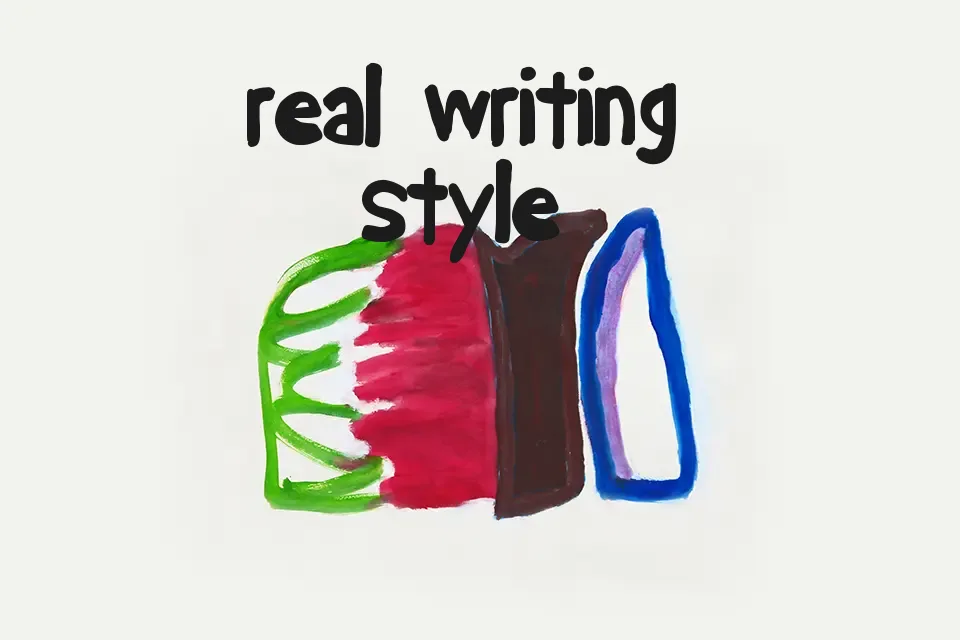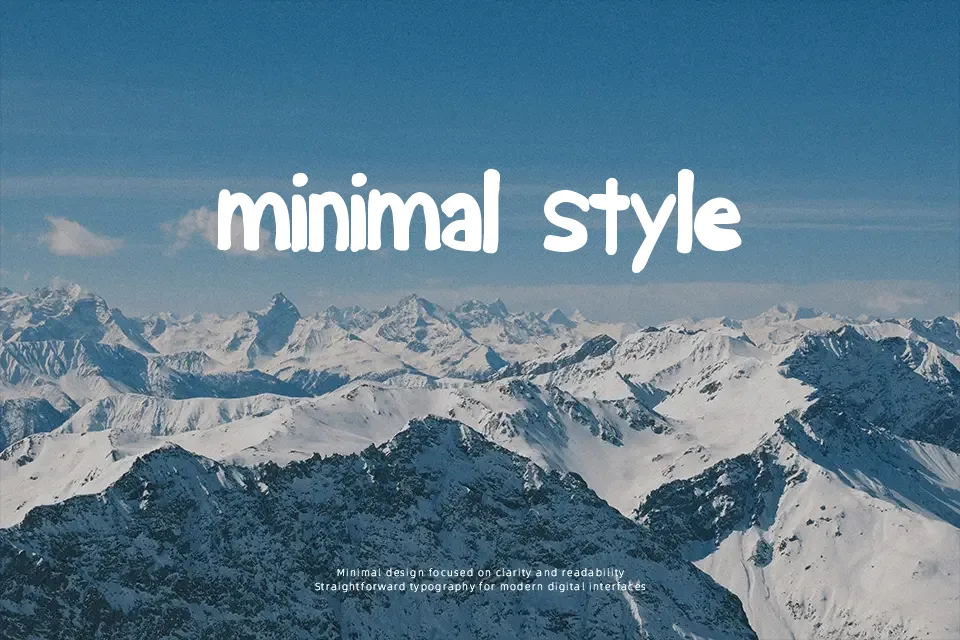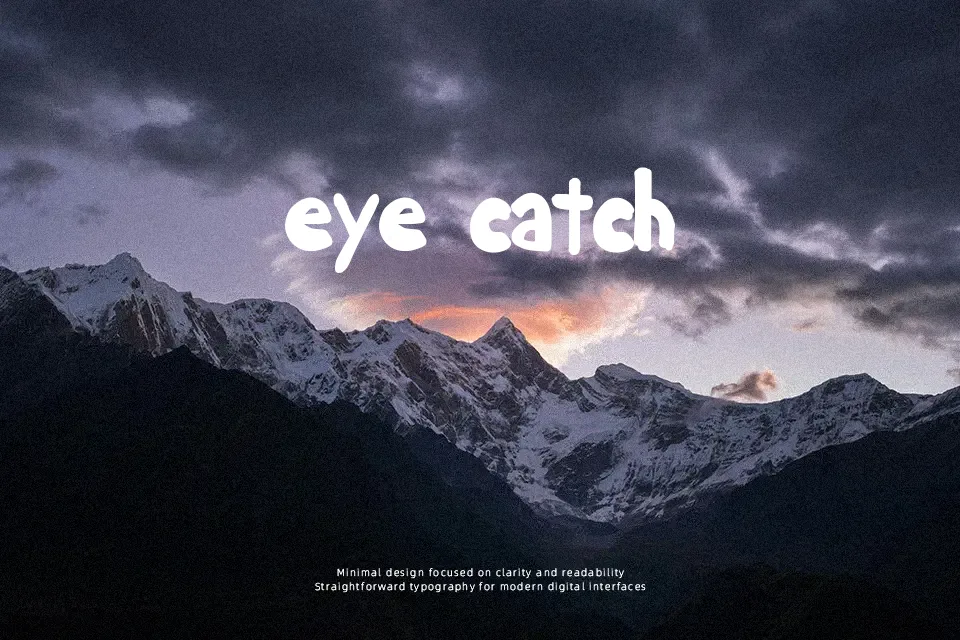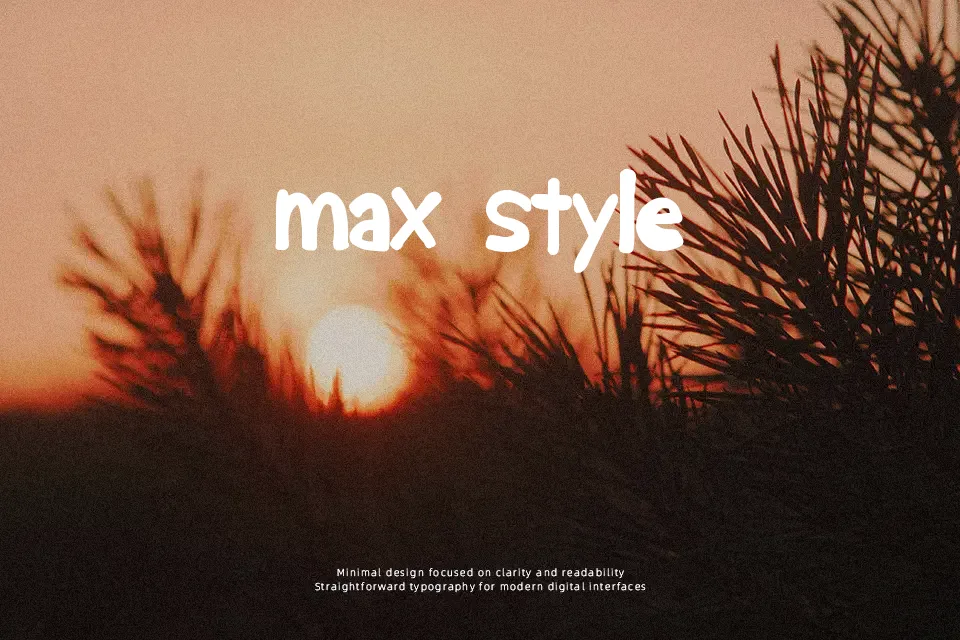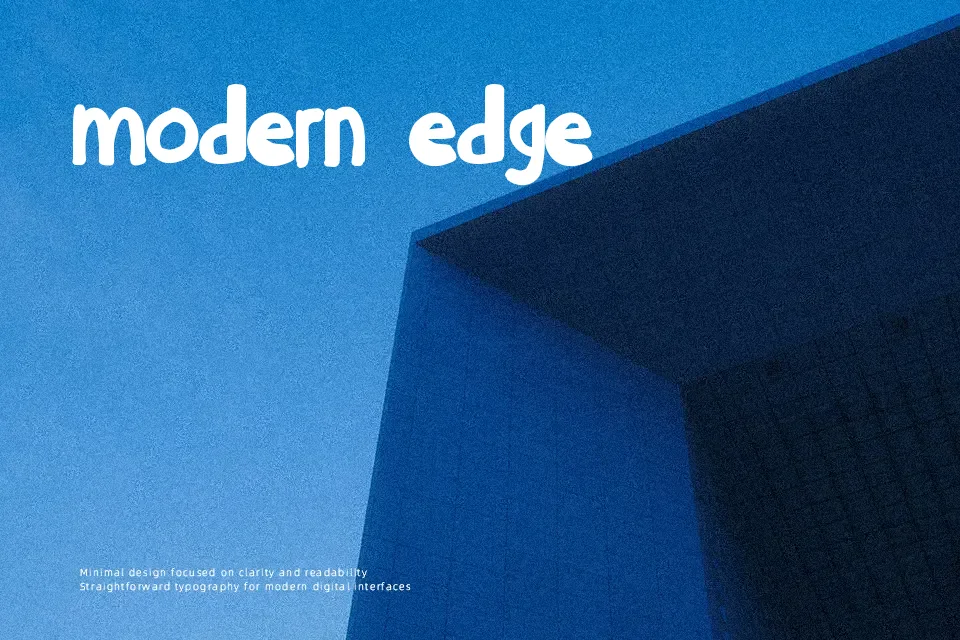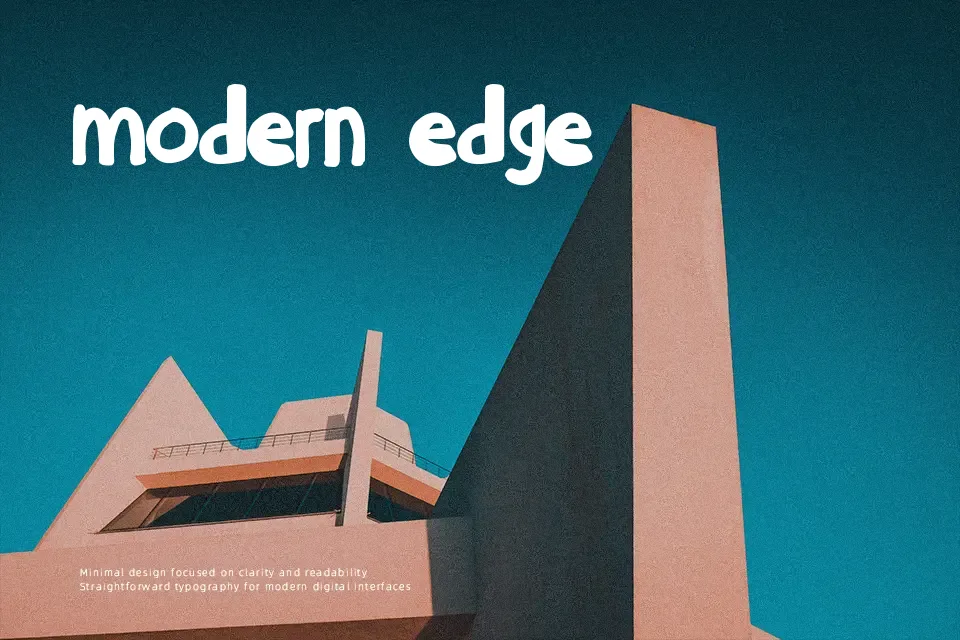
Ace Gaffigan Font
Designed by Geronimo Font Studios
Ace Gaffigan carries the loose confidence of marker-drawn lettering — strokes are uneven by design, spacing feels intentionally casual, and the overall structure leans decorative over functional. It lands somewhere between comic-style display and rough handwritten, giving it a personality that works well on concert posters, podcast cover art, or novelty merchandise headers. The contrast between thick and thin strokes is subtle rather than dramatic, keeping the texture consistent across a title line. Where it struggles is predictable: anything below 24pt becomes muddy, and pairing it with body copy requires a very clean secondary font to avoid visual chaos. Worth using when the goal is approachable energy over polish.
– Podcast or YouTube channel title cards
– Music event posters and gig flyers
– Novelty merchandise and apparel graphics
– Casual editorial headlines or zine covers
– Body text or extended reading
– Corporate or professional branding
– Small-size applications like business card details
– Formal invitations or luxury packaging
Perfect for headline, logo, and music, with a bold and display style.